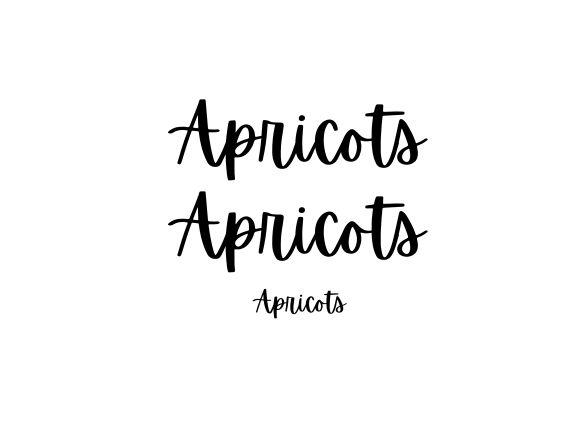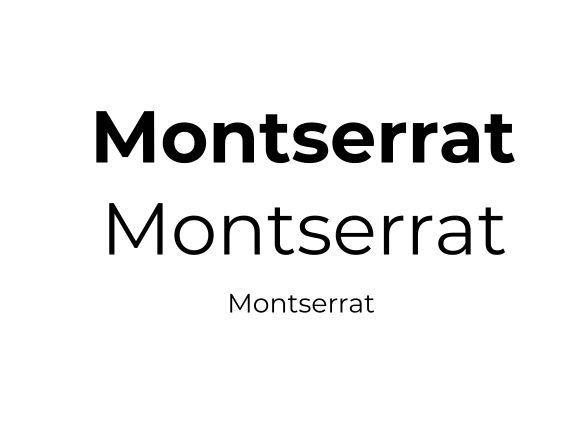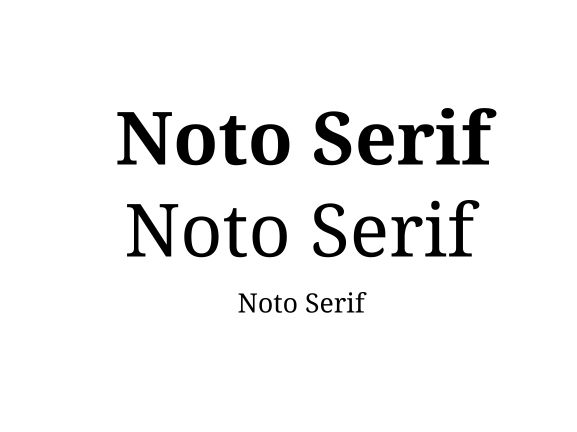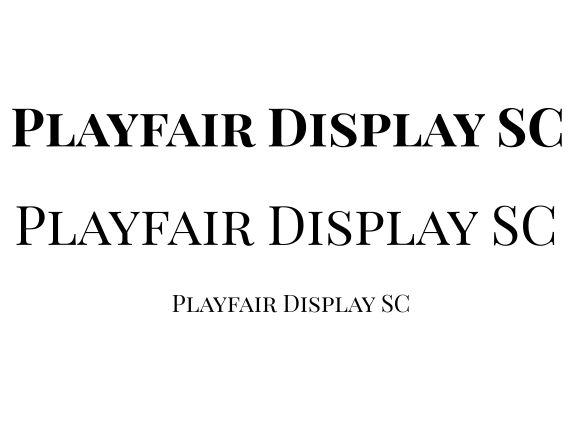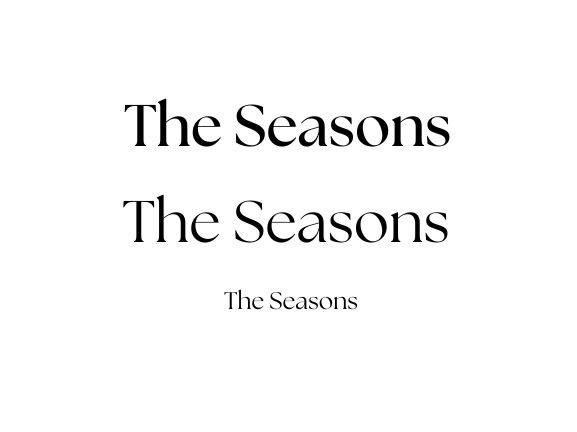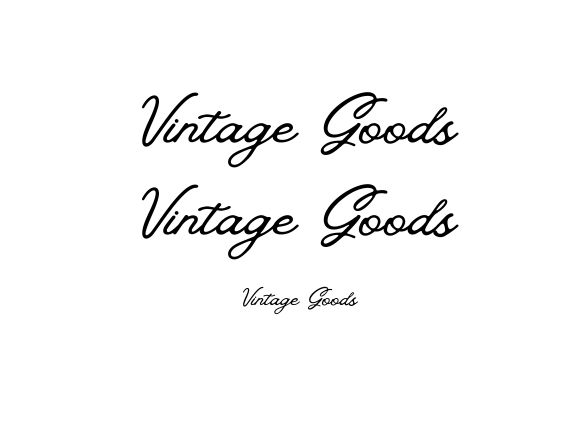
If you’re a designer or marketer working with Canva, did you know that the right font can spark curiosity, or add personality, increase trust, while the wrong one can distract or confuse? That’s right! And you might be interested to know that there’s even a psychological component to font perception.
So, our goal with this blog is straightforward: to explore some of the ultimate Canva fonts available on the remarkable DIY design tool. Whether you’re a seasoned designer or a small business owner putting together your own visuals, having the right fonts at your fingertips can make all the difference.
Now, the Canva fonts library is vast, but not all typefaces are created equal, which is why, from clean and minimal to bold and expressive, we’re rounding up some of the most versatile and impactful fonts you’ll want to keep in your toolkit.
All the Canva fonts you will come across are categorized into 5 major groups. So, for easy browsing, we’re categorizing some amazing Canva fonts by these classifications.
Let’s dive in and check out this ultimate list of Canva fonts.
Serif fonts are those that have tiny “serifs” or feet-like strokes at the ends of letters, giving them a more traditional and elegant appearance. But don’t let their long-standing traditional usage throw you off, because there are serif fonts that pack a strong modern punch, making them a multi-faceted typeface category.
The first example on our Canva fonts list proves this to be true:
Aleo is an excellent contemporary font in the Canva fonts library created by Alessio Laiso. Even though it’s a serif font, Aleo has these nice semi-rounded details and a clean look, so it feels bold but still really easy to read. As you can see from the image above, it can be used in various formats and sizes. This is a free font, and you can easily use it on Canva.
Noto Serif is one of those fonts that feels timeless. It has that classic serif style but with enough polish to make it super readable. Since it comes with different weights and italics, you can mix it up without ever stepping outside the font family.
The Seasons is a font that can instantly dress up your design. It’s a classy serif with a modern edge, which makes it perfect for when you want things to look refined but not old-fashioned.
It’s stylish without trying too hard and is one of the true go-to Canva fonts when you need your designs to stand out.
Playfair Display SC is a striking serif font that immediately brings to mind the bold, dramatic look of old newspaper headlines.
The “SC” stands for small caps, meaning all the letters are styled in uppercase with a refined, uniform design, which gives it a strong, authoritative presence. Inspired by transitional typefaces of the late 18th century, Playfair Display SC carries a classic yet elegant vibe that works beautifully in editorial layouts, posters, and branding projects where you want to command attention.
Due to its dramatic appearance, it’s often used as a display font, especially when designers want a vintage headline feel.
Now let’s move ahead with some sans-serif Canva fonts. If you didn’t guess already, sans serifs are a group of fonts that do not have the “serif” or little feet that we saw in the previous classification.
Sans-serif fonts bring a sleek and contemporary vibe to designs, making them especially popular in modern branding and digital spaces. They strip away the decorative details and keep things bold, clear, and easy on the eyes. If you’re aiming for something professional yet stylish, this category is full of options to explore on Canva.
Let’s kick things off with Montserrat, a font that perfectly captures that balance of structure and personality that Sans serifs are known for.
Montserrat is a sleek sans serif created by designer Julieta Ulanovsky, inspired by the signage and lettering found in her hometown of Buenos Aires. It’s modern, easy to read, and works just as well for bold headlines as it does for everyday text.
You’ll find it ready to use in the Canva fonts library and also in the Google Fonts library, so Montserrat is always easy to access.
Alegreya Sans, designed by Juan Pablo del Peral, is the lighter, more modern sibling of the classic Alegreya Serif. Instead of being stiff or overly formal, it has a warm and approachable feel that makes reading comfortable even in longer texts.
It’s a modern classic with a clean, geometric style, and with its availability on both Canva and Google Fonts, you’ll never have trouble finding it when you need it.
HK Grotesk is a sans serif typeface by Alfredo Marco Pradil that takes inspiration from classic grotesque fonts but updates them with a cleaner, more contemporary twist. It has a straightforward, no-fuss look that makes it great for professional designs, yet it still carries a bit of personality, so it doesn’t feel too plain.
Choosing the right font is key to setting the tone of any design. Whether you’re a marketer, designer, or anyone creating in Canva, picking fonts with confidence makes all the difference. This list gives you a solid starting point to find the best Canva fonts for your projects.